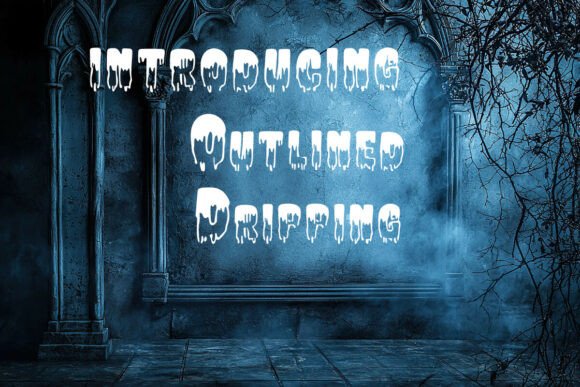
Introduction to Outlined Dripping Font
Do you remember that moment when a design idea just clicks, and you can’t wait to bring it to life? For designers, that spark of creativity is what drives us to create something truly unique and special. And that’s exactly what Outlined Dripping Font is all about – breathing new life into your creative projects with its high-quality, free download design resource.
With its transparent background and versatility in various design applications, Outlined Dripping Font is an invaluable asset for any designer looking to add an extra touch of personality to their work. Whether it’s a bold sticker design or a heartwarming greeting card, this font is sure to make your projects stand out in a crowd.
Whether you’re working on a Cricut project, designing a magazine layout, or creating social media posts that pop, Outlined Dripping Font is the perfect choice for designers who crave a design resource that’s both stylish and functional.
Key Features of Outlined Dripping Font
- Unique, hand-drawn design with a dripping effect, perfect for creative projects.
- Perfect for designers looking for a distinctive, creative design resource for their next project.
Honest Review: Outlined Dripping Font
I recently came across the Outlined Dripping Font, and I must say it’s a great addition to any design resource. The font is available for a free download, which is always a bonus, and it comes with a transparent background, making it easy to customize for any creative project.
What works well with this font is its unique, hand-drawn design. The outlined style gives it a modern and edgy feel that would be perfect for titles, headings, or even logos. ✨ The font is also highly customizable, allowing you to adjust the size, color, and style to fit your design needs.
However, there are a few limitations to consider. ⚠️ The font may not be suitable for small text sizes, as the outlined design can make it difficult to read. Additionally, the font is a bit on the heavier side, which may not be ideal for designs where you need a lot of text.
Overall, I’m impressed with the Outlined Dripping Font. It’s a high-quality font that can add a lot of visual interest to your designs. With a little creativity, you can use this font in a variety of ways to make your projects stand out.
- Unique, hand-drawn design
- Outlined style for a modern feel
The Outlined Dripping Font is a high-quality, free download that offers a unique and creative design element for your projects. With its transparent background, this font is perfect for adding a touch of elegance to your design.
Tips for Getting the Most Out of Outlined Dripping Font
Experiment with different font sizes and colors to create a unique look.
Use the Outlined Dripping Font in combination with other design elements to add depth and interest to your project.
The Outlined Dripping Font is perfect for:
Branding and marketing materials
Event flyers and posters